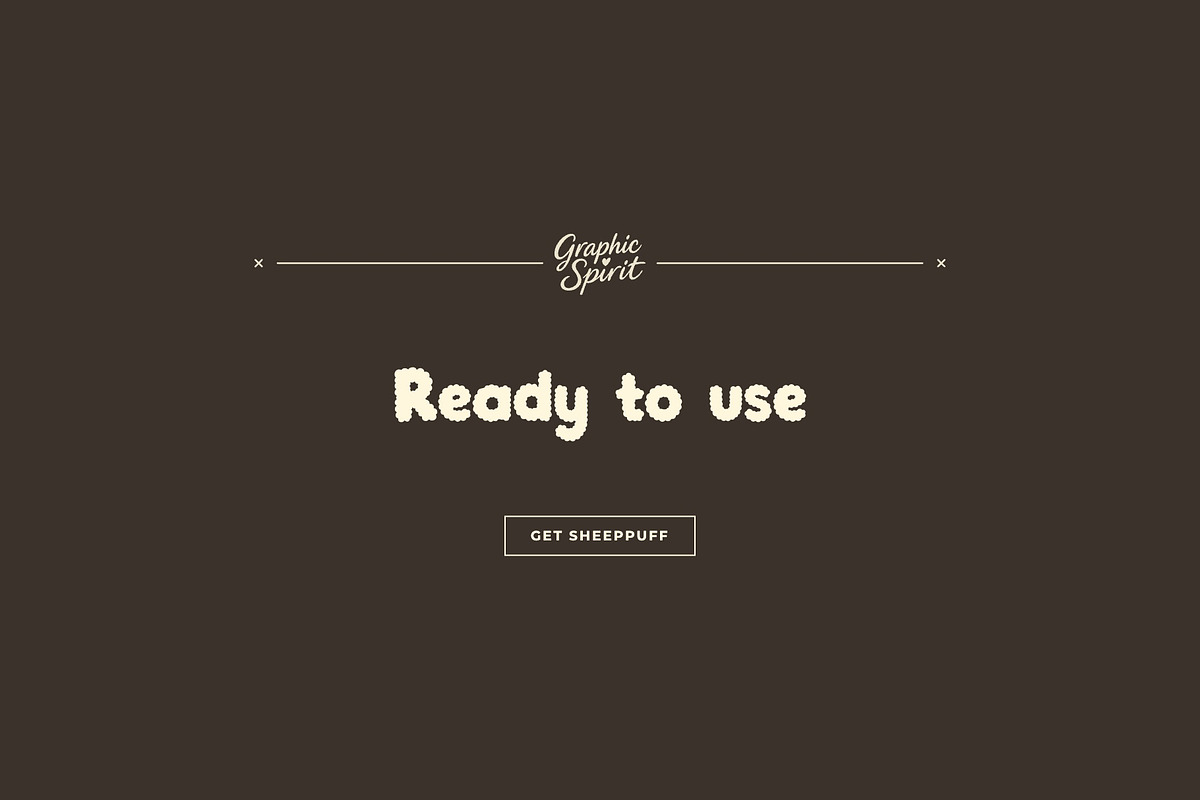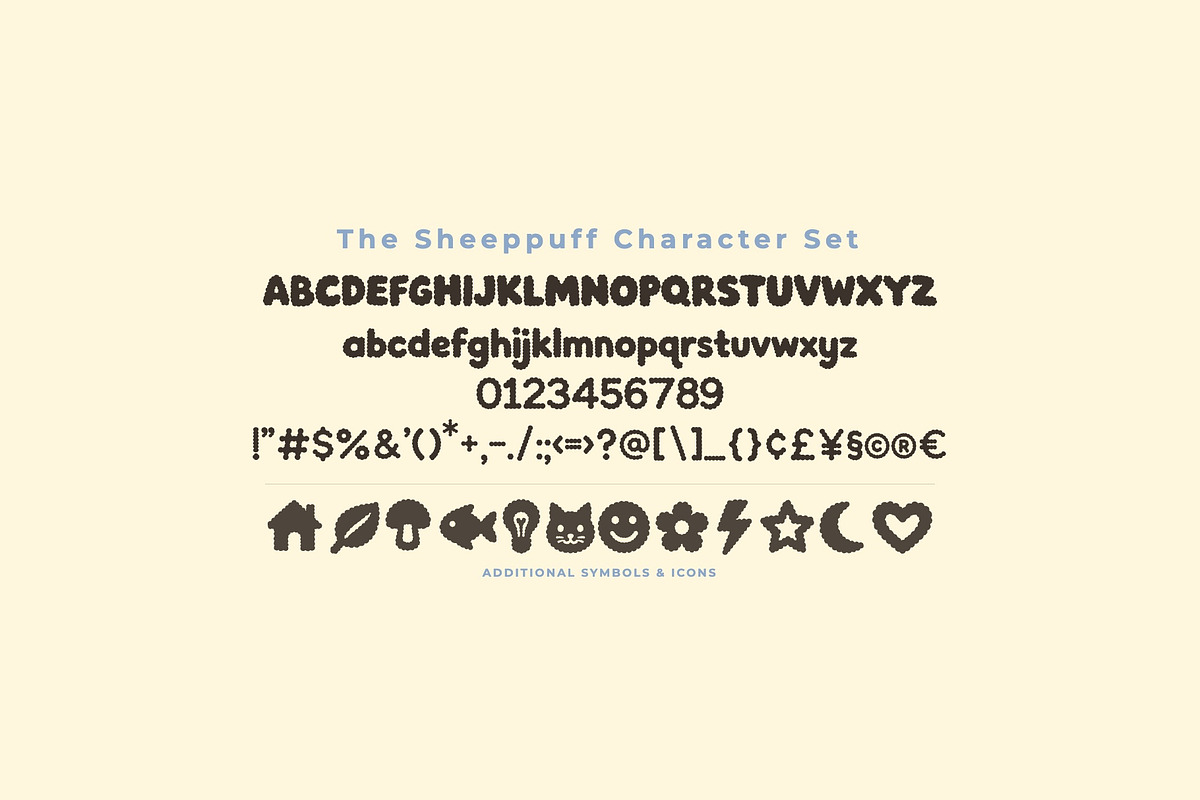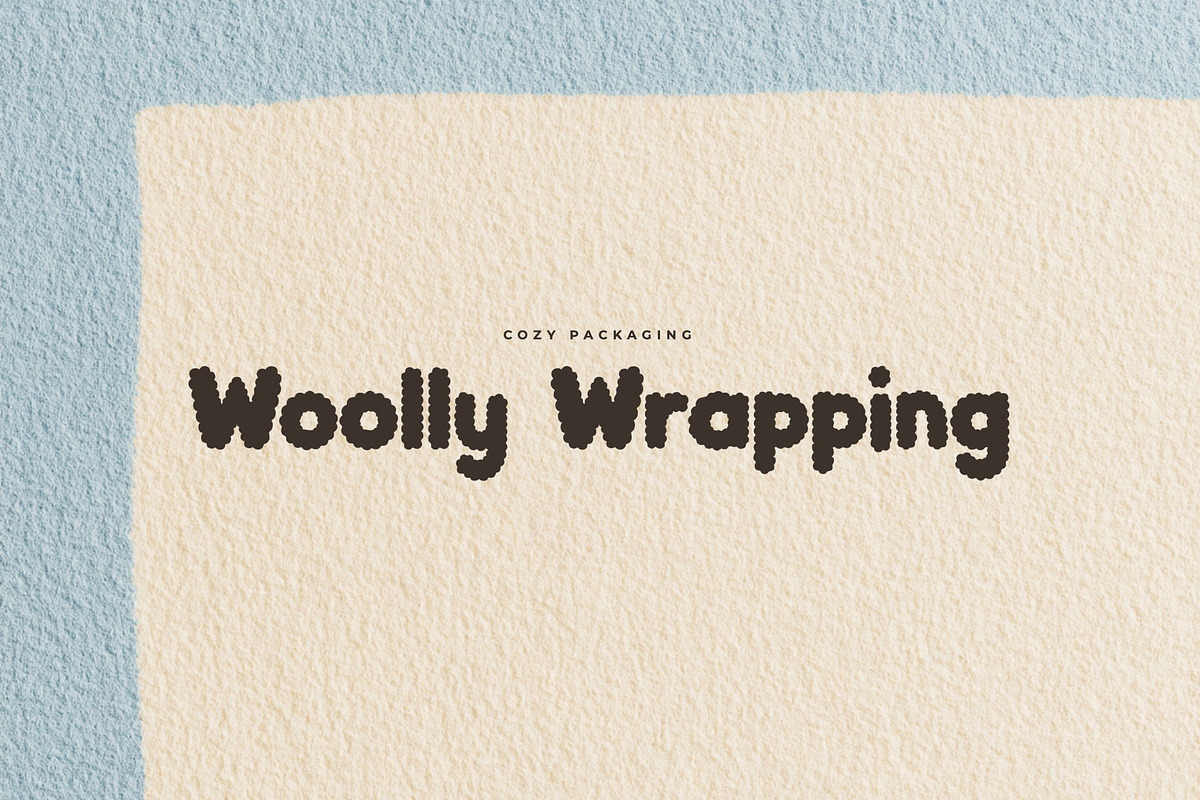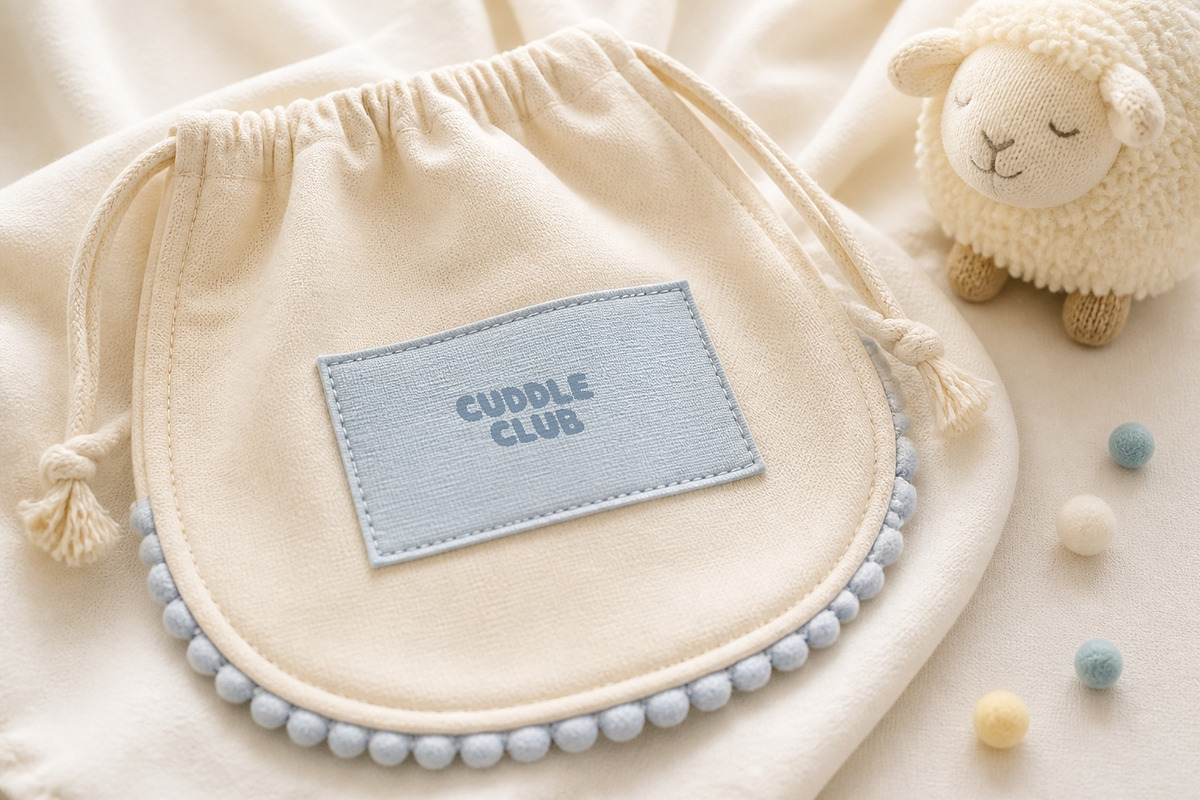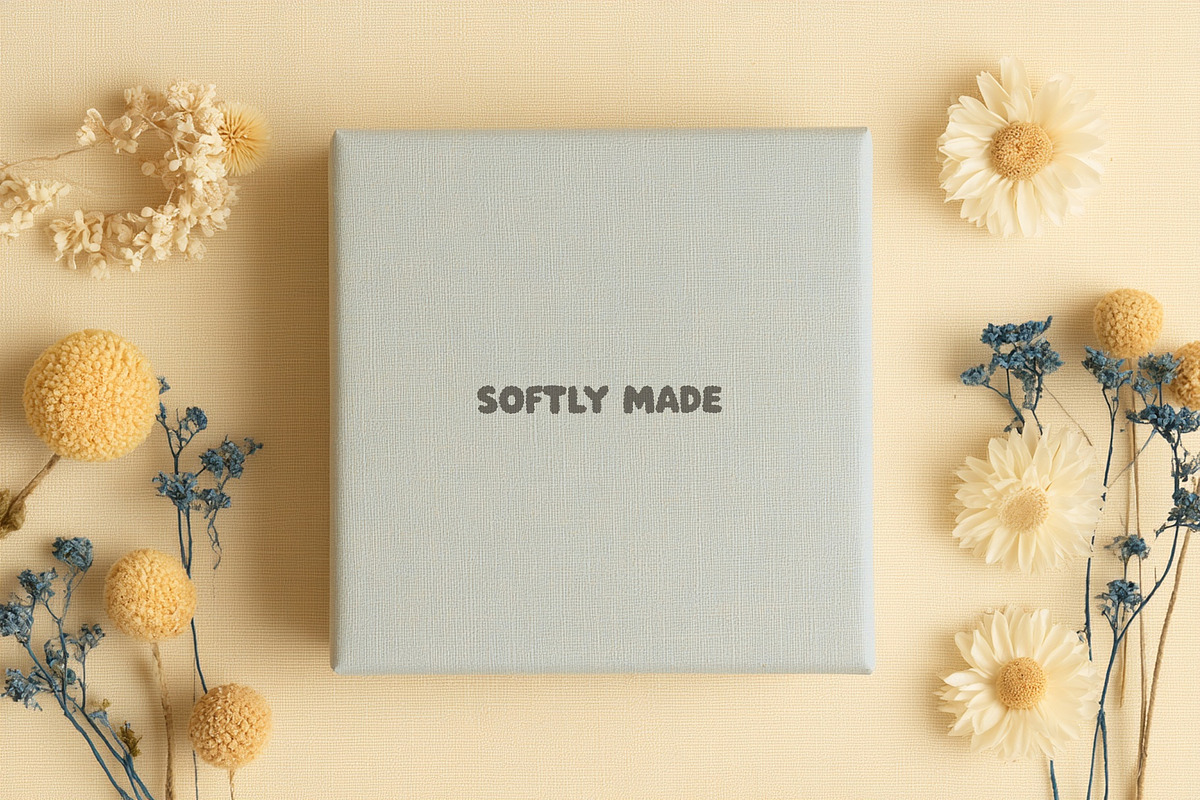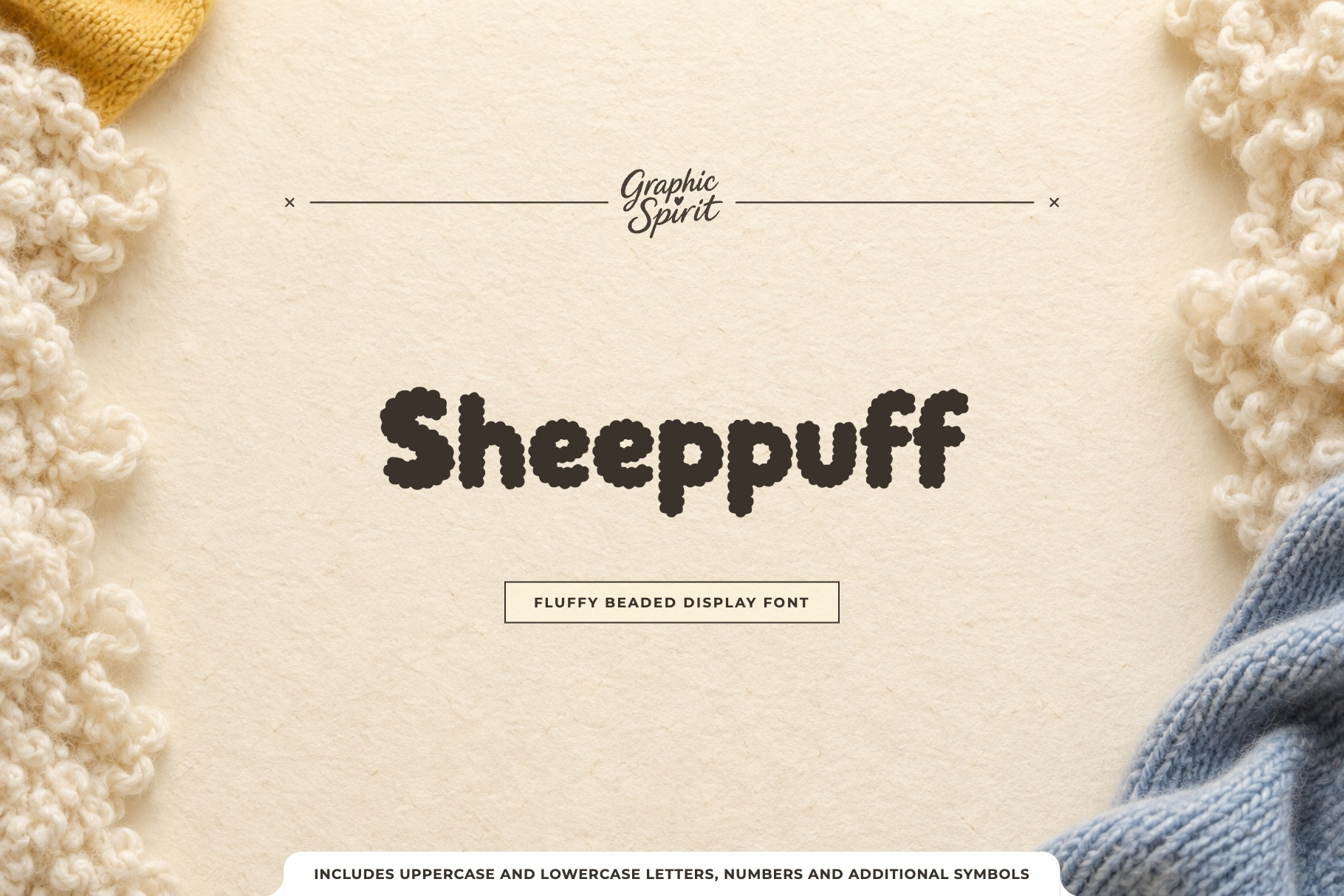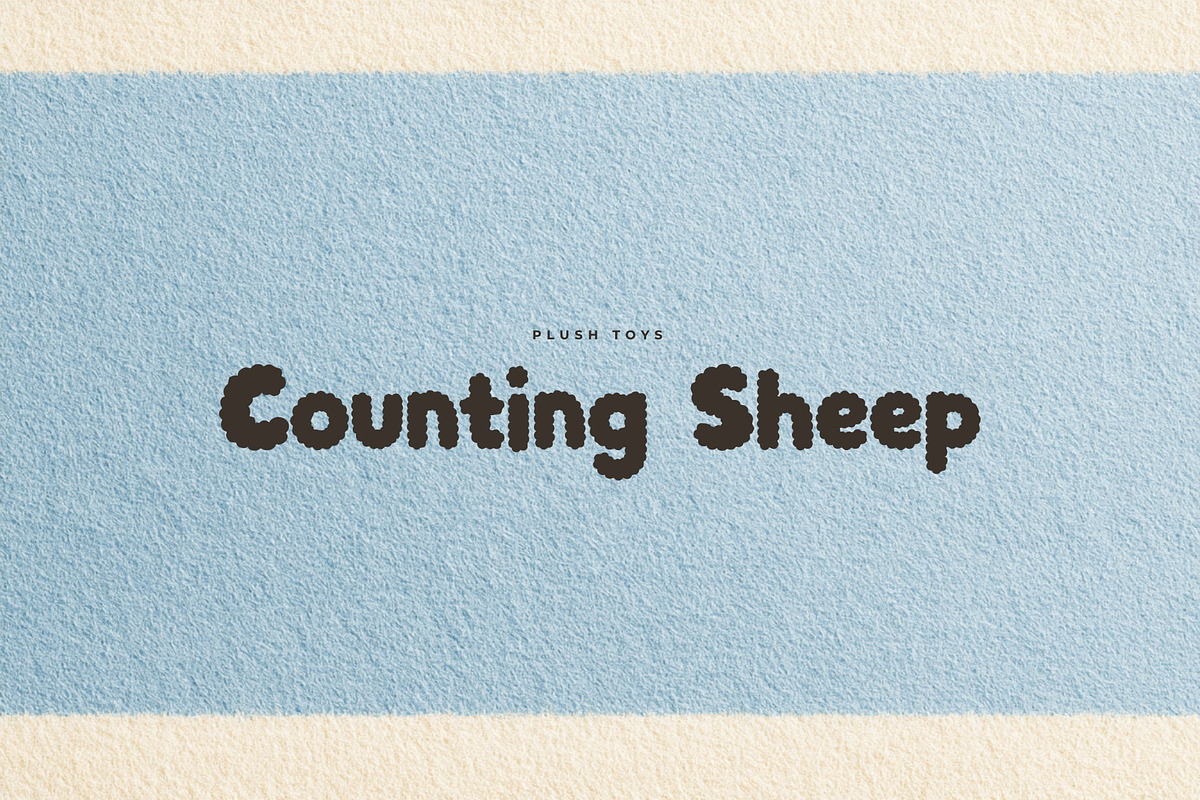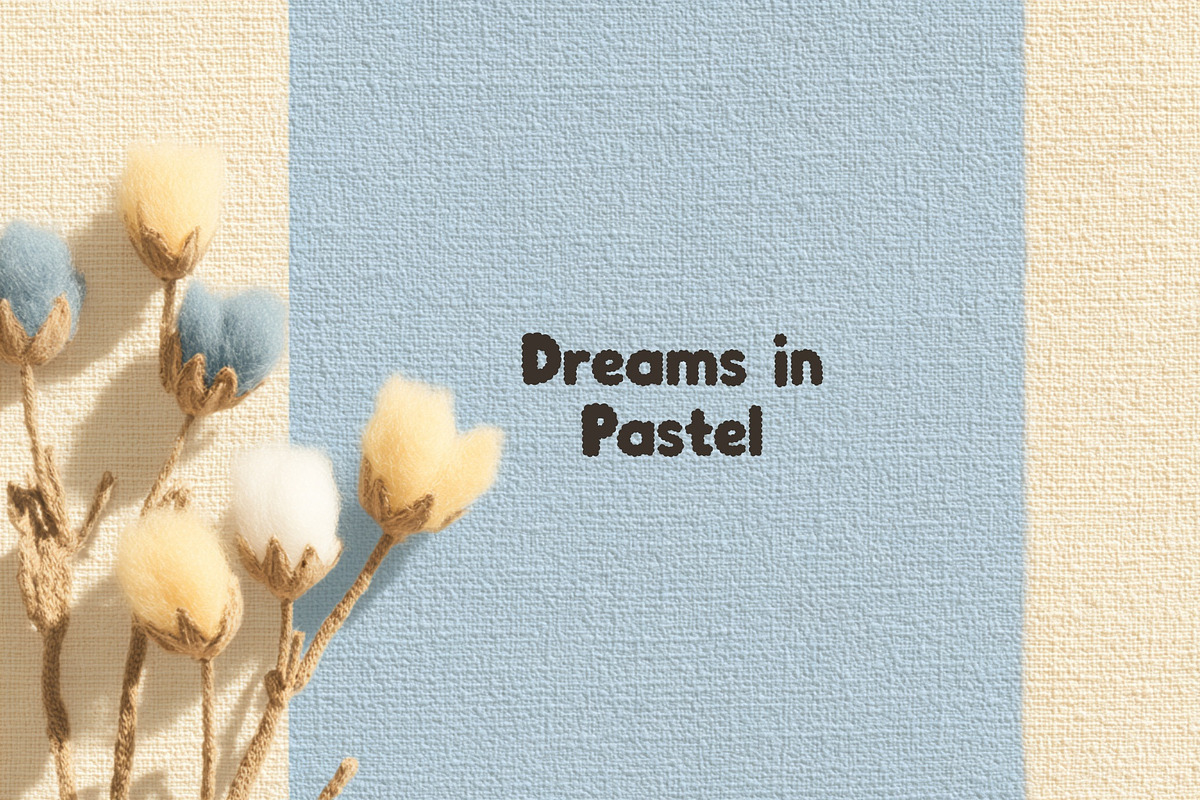
Sheeppuff Fluffy Beaded Display Font
☁️ 🧸 🐑 ✨ Sheeppuff is a fluffy beaded display shaped by soft tactile volume and cheerful cozy personality. It was created for designers and independent brands looking for expressive display typography that feels specific rather than generic.
🎨 The font works beautifully across kids branding, plush packaging, nursery graphics, cozy labels, playful posters. Use it for a confident headline, a memorable product name, or a typographic accent that ties a visual identity together. 💫
🌟 Best for:
- ☁️ Kids Branding
- 🧸 Plush Packaging
- 🐑 Nursery Graphics
- ☁️ Cozy Labels
- 🧸 Playful Posters